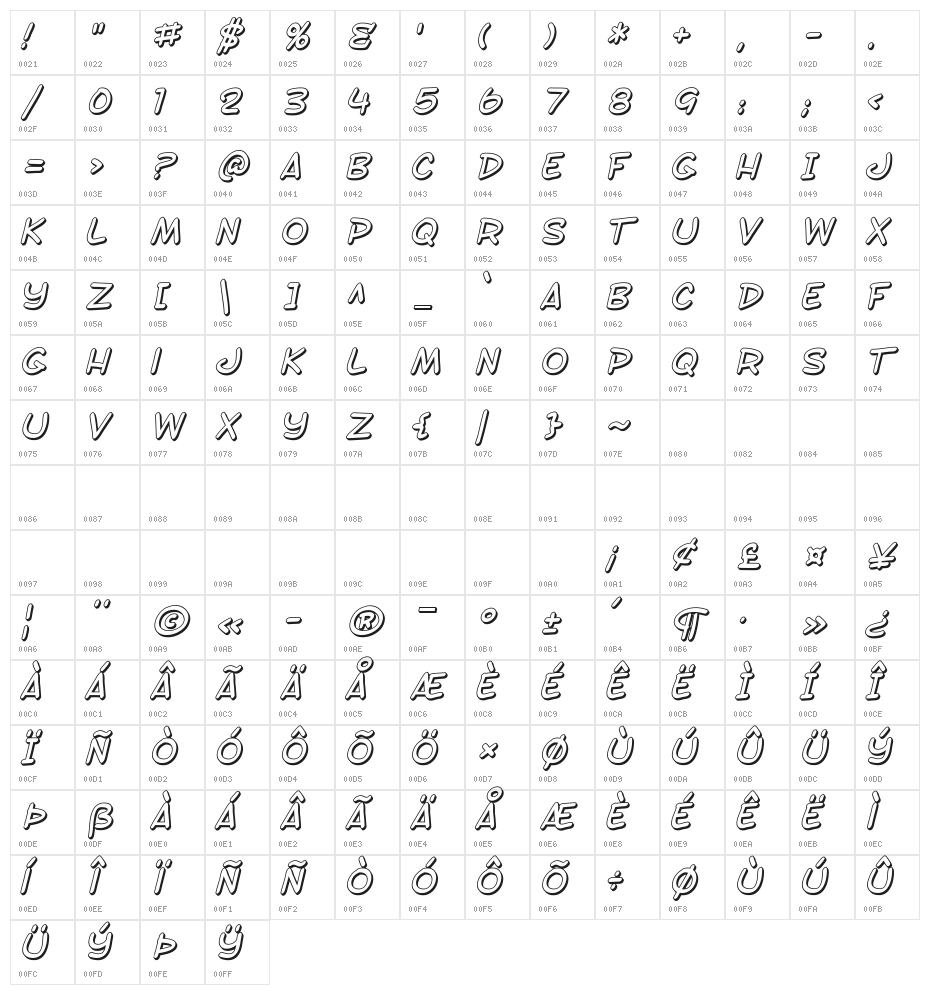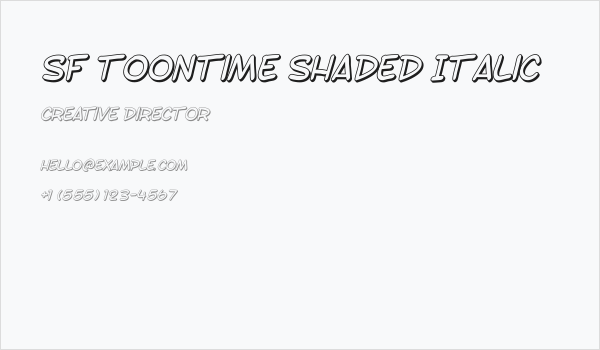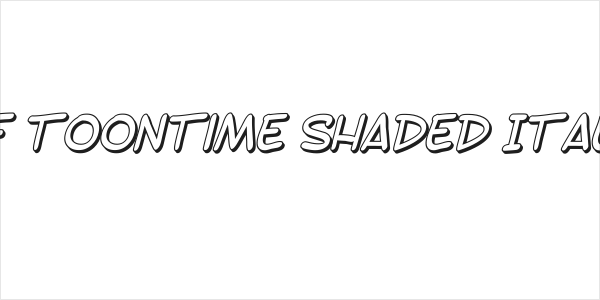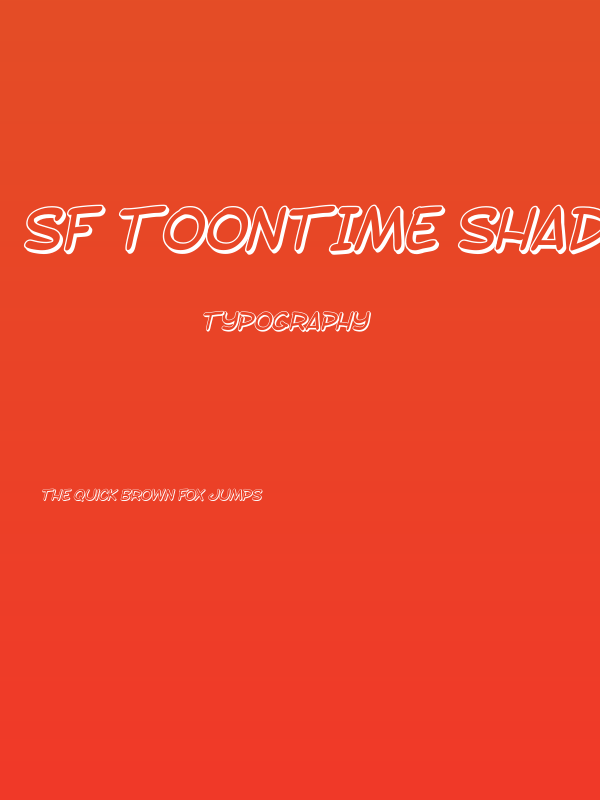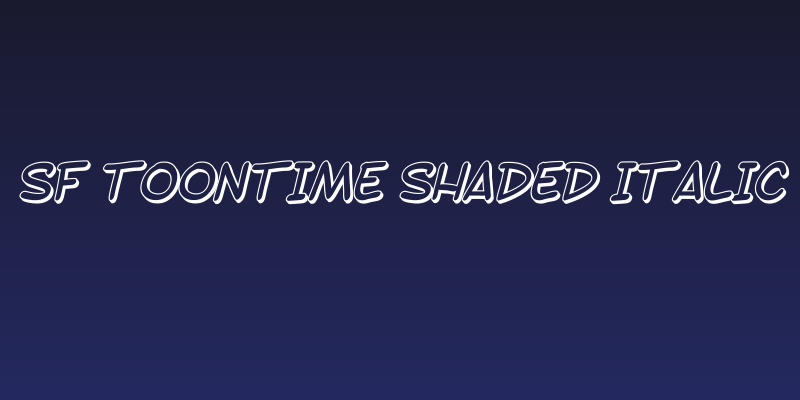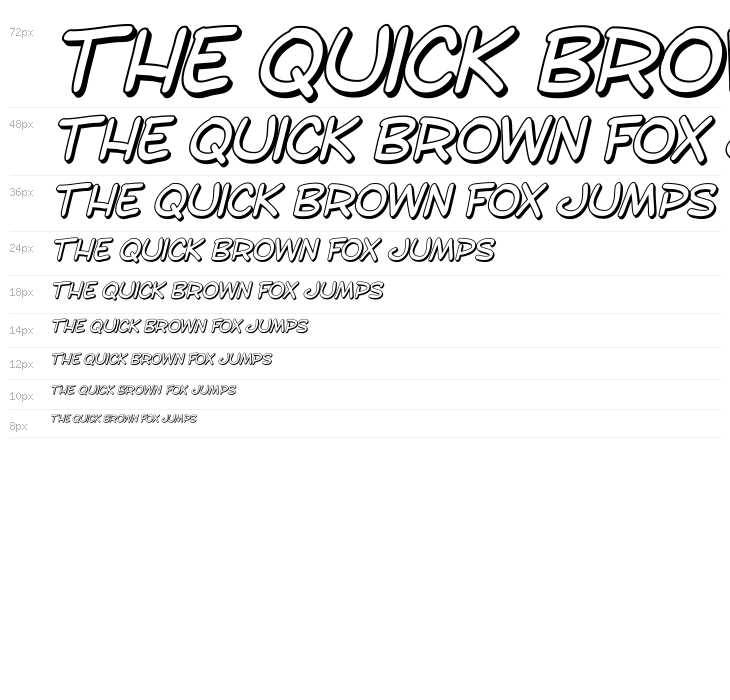
SF Toontime Shaded Italic Font
SF Toontime Shaded Italic Description
This playful and dynamic font features a bold, cartoonish style with a shaded effect that adds depth and dimension to each character. The italic slant gives it a sense of movement and energy, making it ideal for projects that require a fun and engaging visual appeal. The letters are outlined with a thick black stroke, enhancing their visibility and making them stand out. The font includes a full set of uppercase and lowercase letters, numbers, and a variety of special characters, ensuring versatility in its application.
| Overall Style | Playful, Cartoonish |
| Proposed Projects | Ideal for children's books, comic strips, playful branding, and eye-catching posters. |